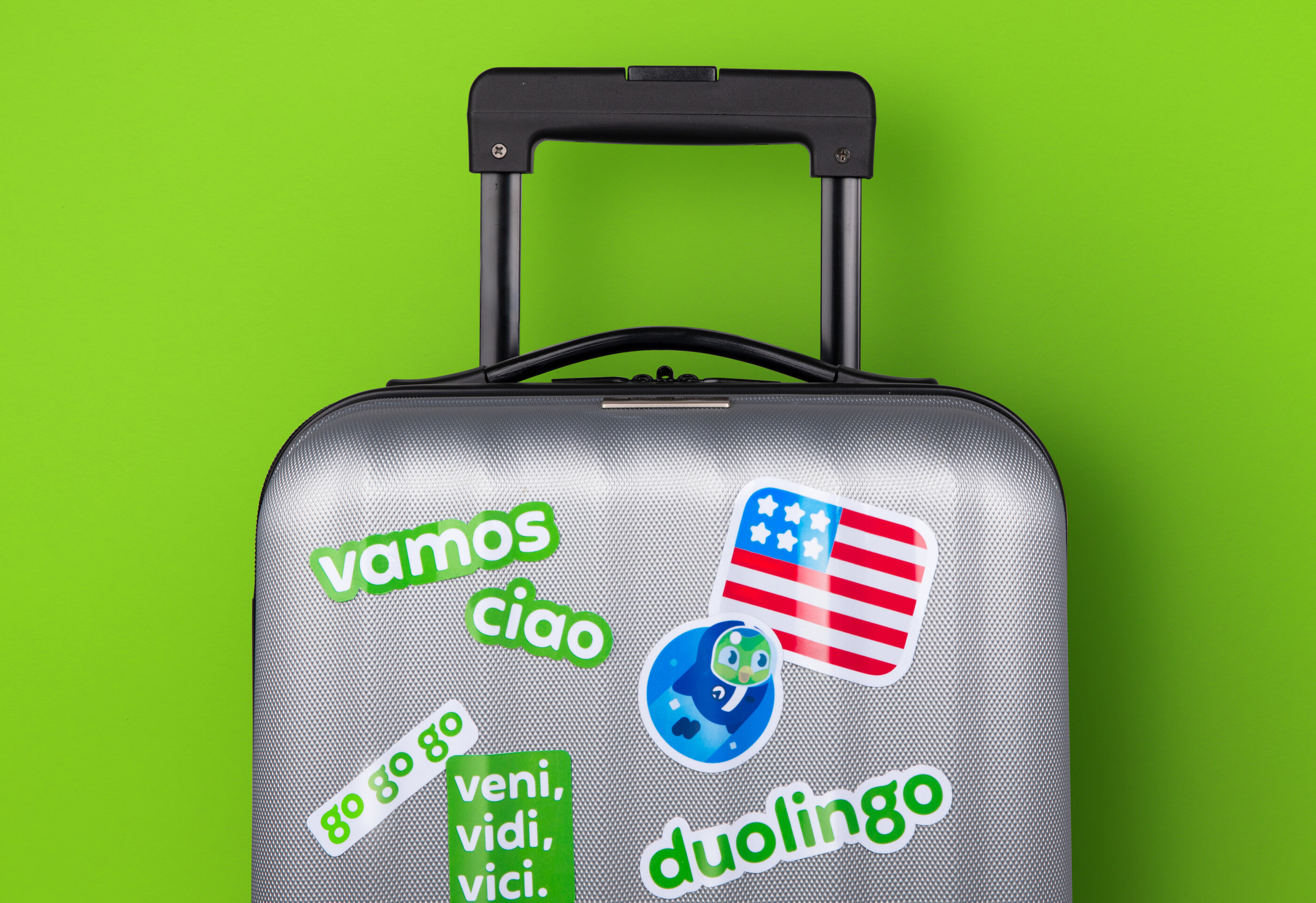
Duolingo
See how we helped Duolingo find its voice (and its wings) with a custom brand font.
Taking inspiration from Duolingo’s iconic owl mascot ‘Duo’, agency Johnson Banks had begun to explore how the shapes inherent in the mascot’s design could influence the typography. Together we began to look at how to incorporate the shape and spirit of an owl’s wing into a unique custom font.
Duolingo, the hugely popular language learning web app, were refreshing their brand identity and Johnson Banks came to us to help finesse the favoured concept. Our brief was to fine-tune it into a master logo and then extrapolate it into the design of a new custom display typeface, one that aims to become synonymous with the brand and create a distinct continuity of voice across all of Duolingo’s communications.
Taking inspiration from Duolingo’s iconic owl mascot ‘Duo’, Johnson Banks had begun to explore how the shapes inherent in the mascot’s design could influence the typography. Together we needed to look at how to incorporate the shape and spirit of an owl’s wing into every conceivable letterform.
Johnson Banks shared their entire creative process for the new logo and their initial versions so that we had a firm grasp on the creative direction.
The shape of the ‘g’ was both integral to the logo design and a key component of the overall feel of the typeface, so many creative directions were proposed for this important character.
The logotype lead the way for the headline font as we started expanding the design out to key words and phrases. Once the master logotype was refined and approved, we expanded our development process for the typeface, exploring alternative forms for almost every letter shape, and testing each time with the tone of voice and sample messaging that Johnson Banks had proposed. The process of collaborative feedback sessions left no stone unturned.
The Duolingo visual identity system is a great example of how brands can create a unified visual language around a central theme. Every aspect of Duolingo’s identity is informed by and conveys Duo’s personality and rounded feather form.
‘Feather Bold’ is a key part of the brand that was rolled out into all aspects of Duolingo’s branded communications, alongside an entire brand refresh that Johnson Banks carried out in tandem with Duolingo’s design and marketing team.